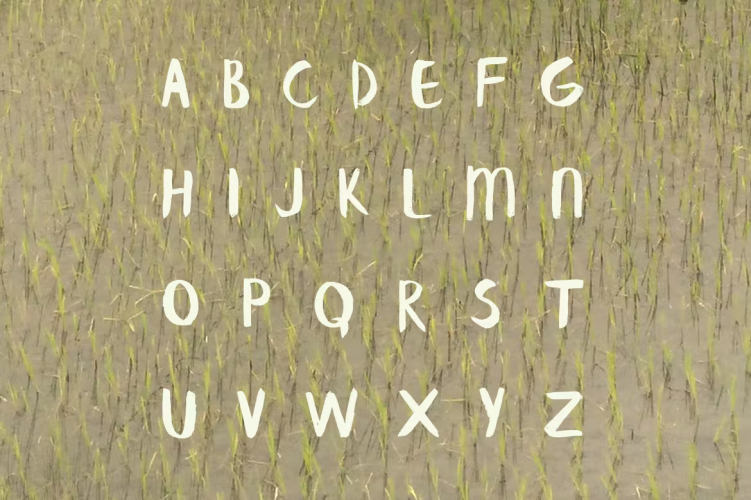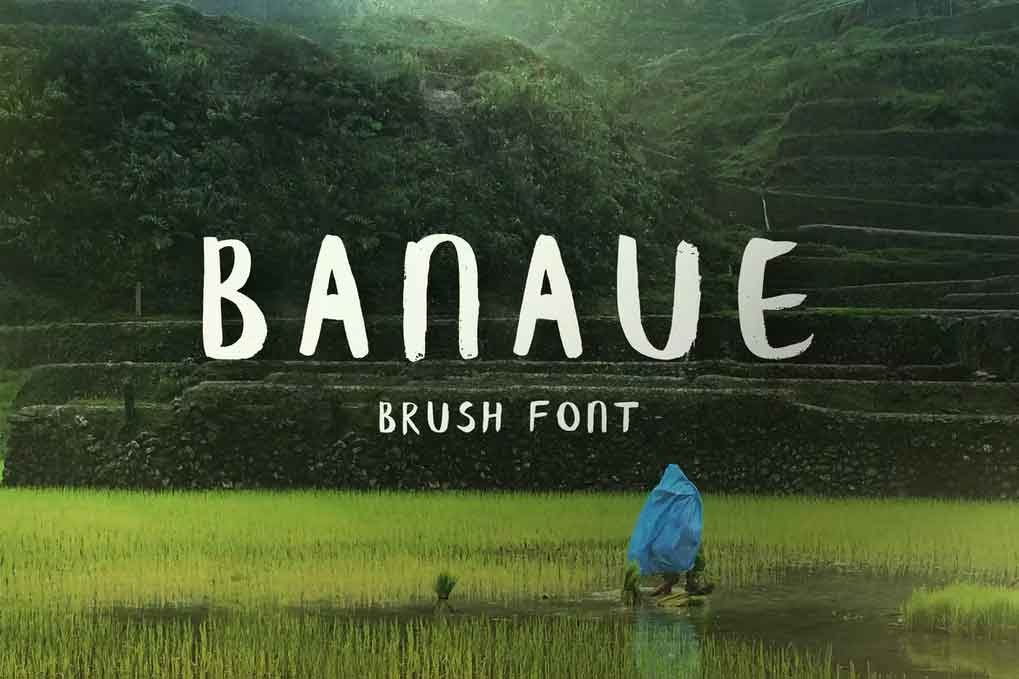
Banaue Handwritten Brush Font
Banaue is a handwritten brush font for a homemade look. The font features 104 characters and has all the basic glyphs. The download contains a .otf file. Hand brushed by Ieva Mezule. The name comes from Philippenes, Banaue is a place in the north. Rice terraces that stretch around mountains, and the rice they produce is only for the local use. The lady in the blue raincoat, that is featured in the main image, was a local rice planter.
Banaue Handwritten Brush Font is a Script And Handwritten font that brings a professional and versatile look to your projects. Banaue is a handwritten brush font for a homemade look.